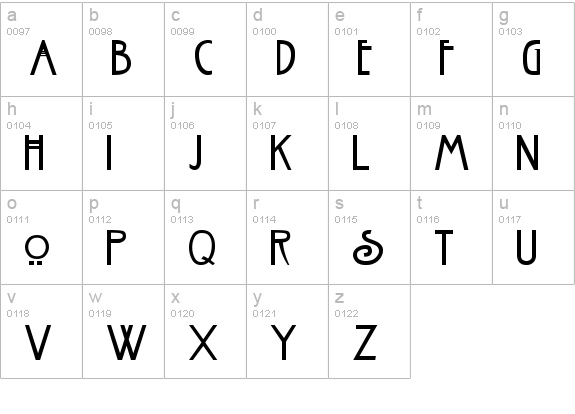
Esmount Font Details
Esmount font is a modern and stylish typeface that exudes sophistication and elegance. With its clean lines and sleek design, Esmount is perfect for a wide range of design projects, from branding to editorial design and beyond. This versatile font features a unique blend of classic and contemporary elements, making it a perfect choice for both print and digital applications. The best part? Esmount font is completely free to download at FontsMarket.com! Whether you're a graphic designer, a blogger, or just someone looking to add a touch of elegance to your projects, Esmount font is a must-have in your font collection. Don't miss out on this amazing opportunity to elevate your designs with this stunning typeface. Download Esmount font today and take your projects to the next level!